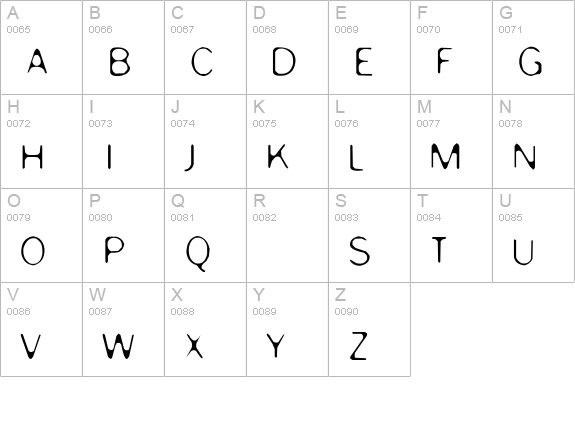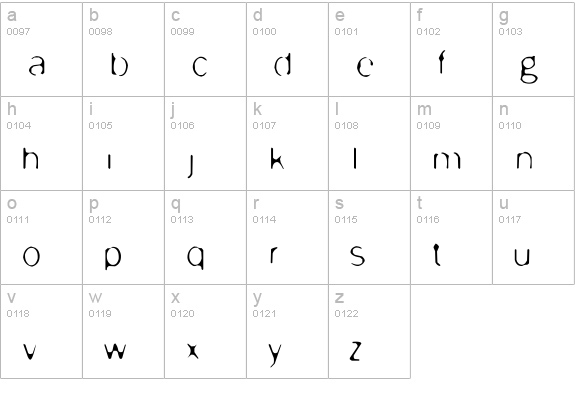
Enervate Font Details
Enervate font is a modern and stylish typeface that exudes sophistication and elegance. With its sleek lines and contemporary design, Enervate is perfect for adding a touch of class to any project. Whether you're designing a logo, creating a website, or working on a branding project, this font is sure to make a statement. The best part? Enervate font is completely free to download at FontsMarket.com. That's right, you can elevate your designs with this stunning font without having to spend a dime. So why wait? Head over to FontsMarket.com and download Enervate font today to take your projects to the next level.